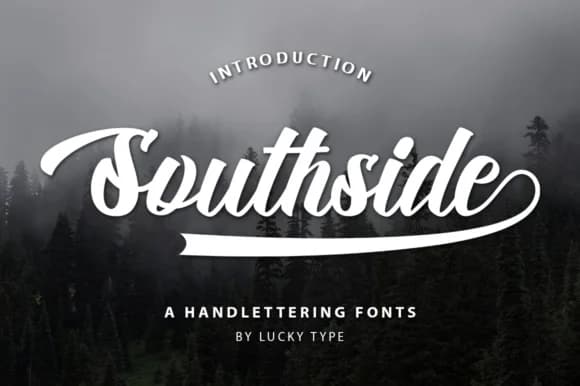
Southside Script Font by luckytype.font is a vintage-inspired handwritten script that captures the raw charm of authentic calligraphy. With its characterful, slightly irregular baseline, the font delivers the handcrafted feel that contemporary brands seek to establish authentic connections with their audiences. The feminine aesthetic makes it an excellent choice for romantic and elegant applications across multiple design sectors.
Wedding invitation suites represent one of the primary uses for this versatile script, offering couples the opportunity to express personal style through custom stationery. The font also performs beautifully on thank you card collections, bridal shower materials, and engagement announcements that require genuine warmth. Beyond traditional occasions, the naturally uneven baseline adds compelling visual personality to custom quote graphics and typography-focused social media content where authenticity resonates with audiences. Luxury brands leverage this script for boutique cosmetics packaging and artisanal jewelry labels where handcrafted authenticity is paramount.
The font's organic character translates seamlessly to packaging design for handmade goods, particularly on platforms like Etsy where consumers actively seek products with visible personality and craft. Small business owners and creative entrepreneurs frequently integrate this script into event stationery, logos, and brand identity systems where elegance without pretension matters. Each letterform contributes to a distinctive sense of movement that appeals to modern consumers seeking genuine human touch in design. Add Southside Script Font to your collection on Creative Fabrica and bring authentic calligraphic elegance to your next project.
Southside Script Font is a script font that shines as a display or heading face. Pair it with a clean sans-serif or serif font for body text β the contrast creates a clear hierarchy while the two styles stay balanced and easy to read.